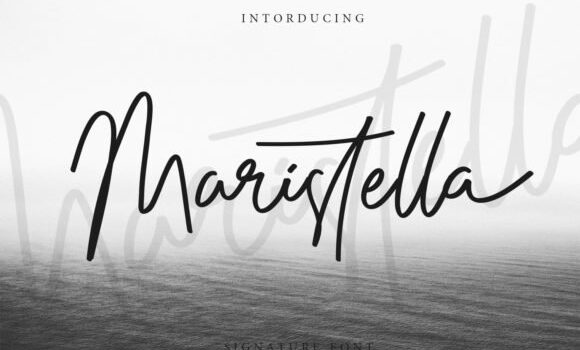
maristella
Maristella Font – Free Download Introduction to Maristella Font Maristella is a unique and stylish script with an authentic look. 📸 Preview Gallery 6 images 📌 Product Name Maristella Font 👤 Author Arendxstudio 📂 Category Explore ⬇️ Download Maristella Font